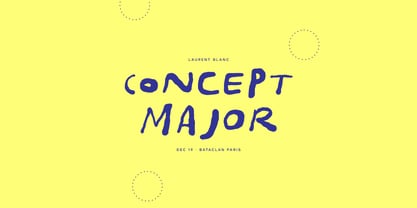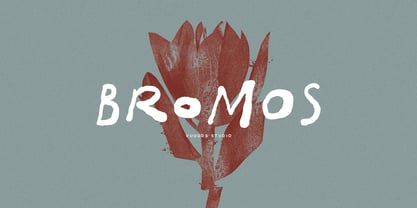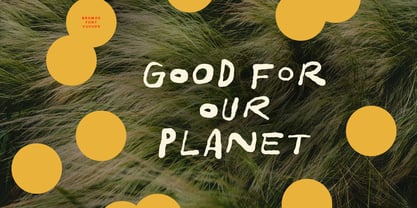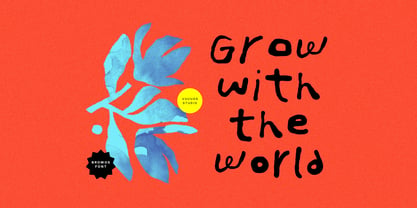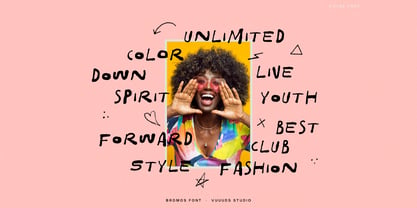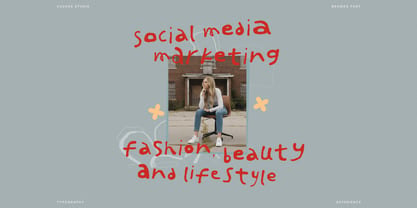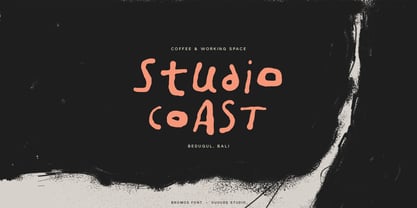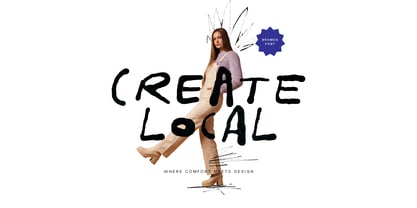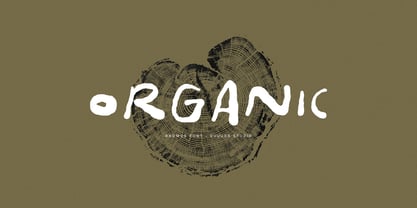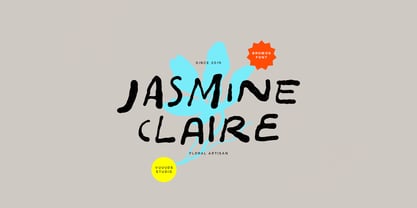
Bromos
Die Schriftfamilie Bromos wurde von Agung Syaifudin entworfen und von vuuuds veröffentlicht. Bromos enthält 1 Stile. Mehr über diese Familie
Introducing Bromos!
a dynamic font that captures the raw power of an authentic brush style, stroke by stroke. This typeface is bold, organic, and designed to make your design projects stand out instantly. Ideal for impactful branding, eye-catching logos, striking packaging, and punchy social media headlines, Bromos empowers you to not just create a design, but to make a statement. Explore the unique features of Bromos and elevate your creative projects with its vibrant character.